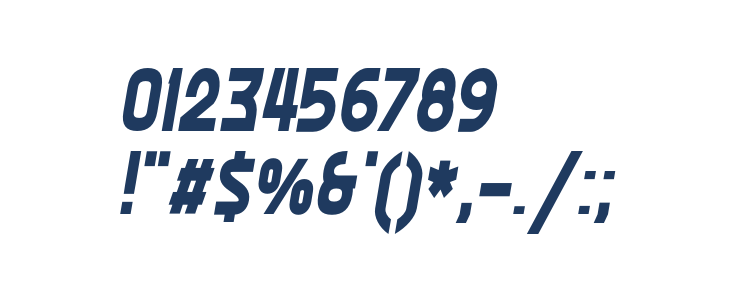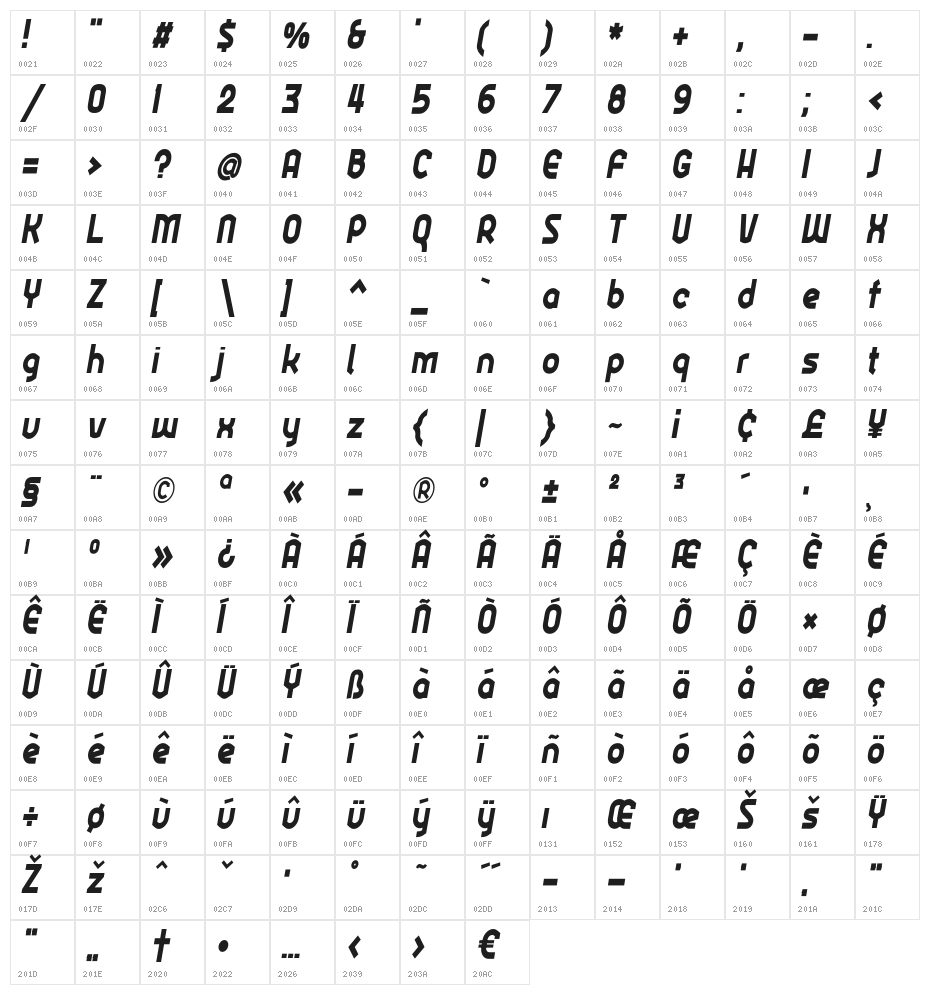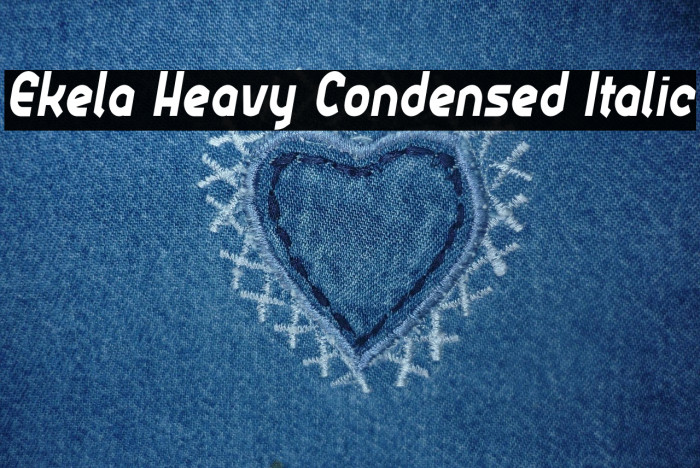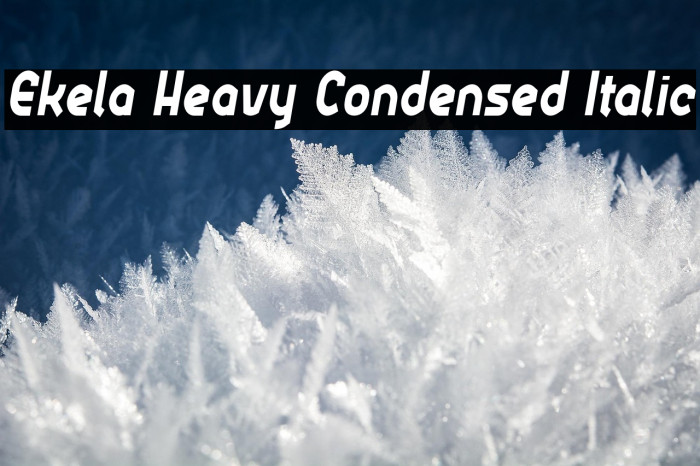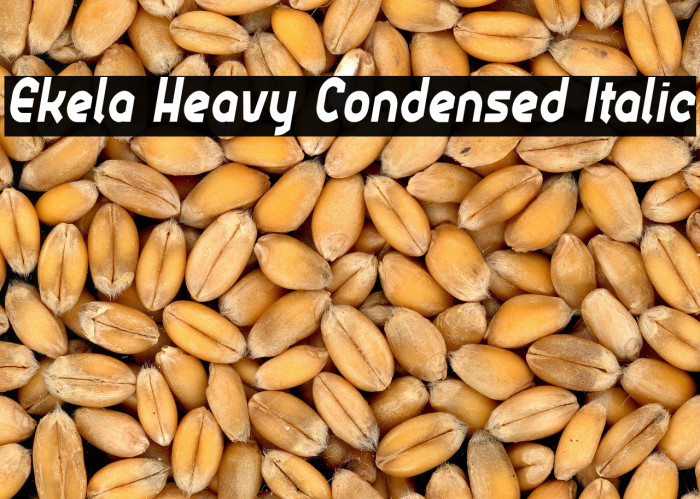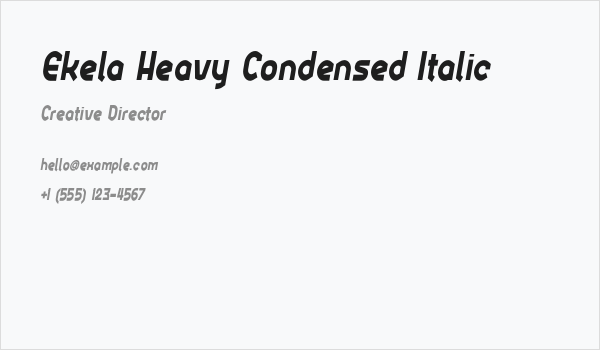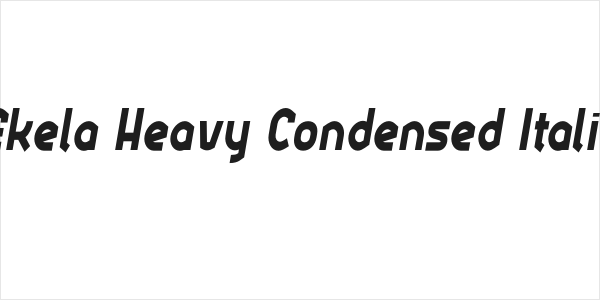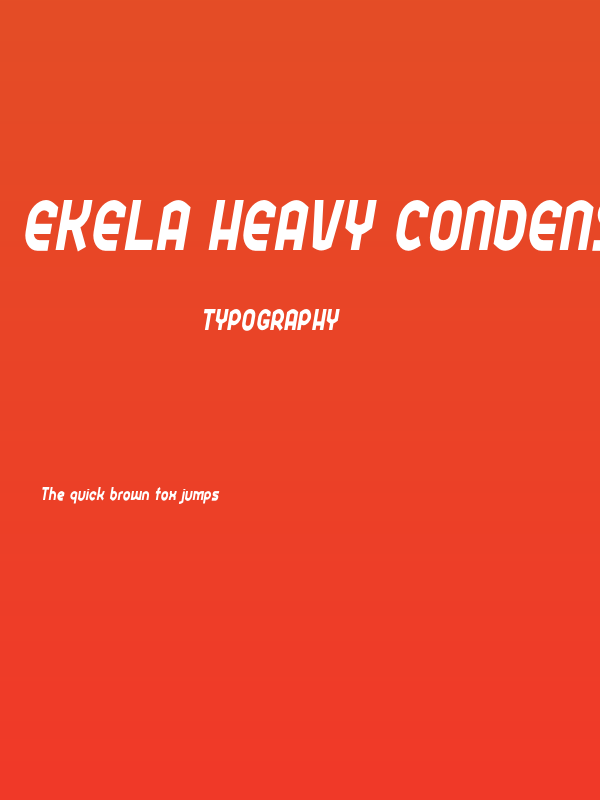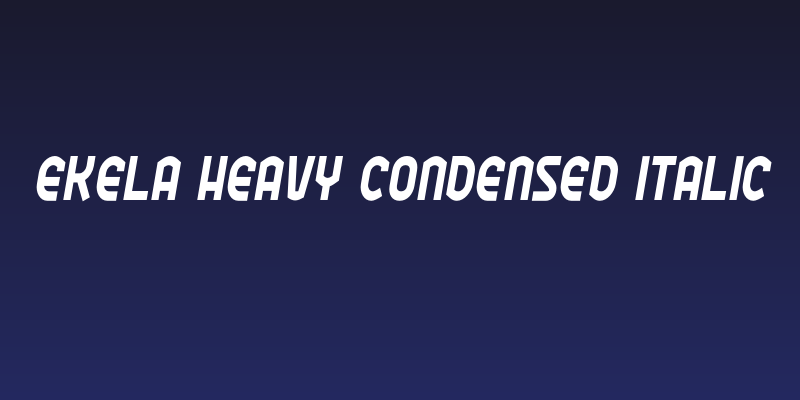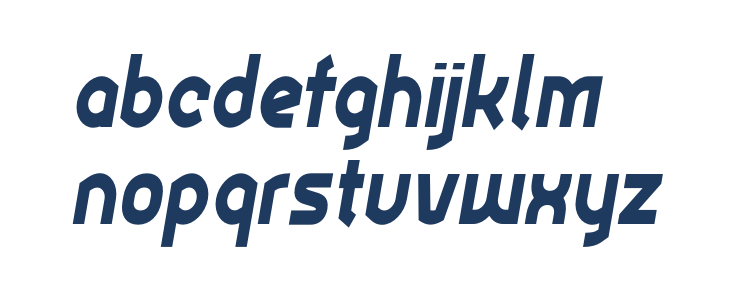
Ekela Heavy Condensed Italic Font
Ekela Heavy Condensed Italic Description
This font features a bold and condensed style with a distinct italic slant, giving it a dynamic and energetic appearance. The characters are tightly spaced, enhancing its compact and impactful look. The strokes are thick and consistent, providing a strong visual presence. The uppercase and lowercase letters maintain a uniform style, while the numerals and special characters complement the overall design. This font is well-suited for projects that require a modern and assertive aesthetic.
| Proposed Projects | Ideal for headlines, posters, branding, and advertising materials that need a strong and modern impact. |